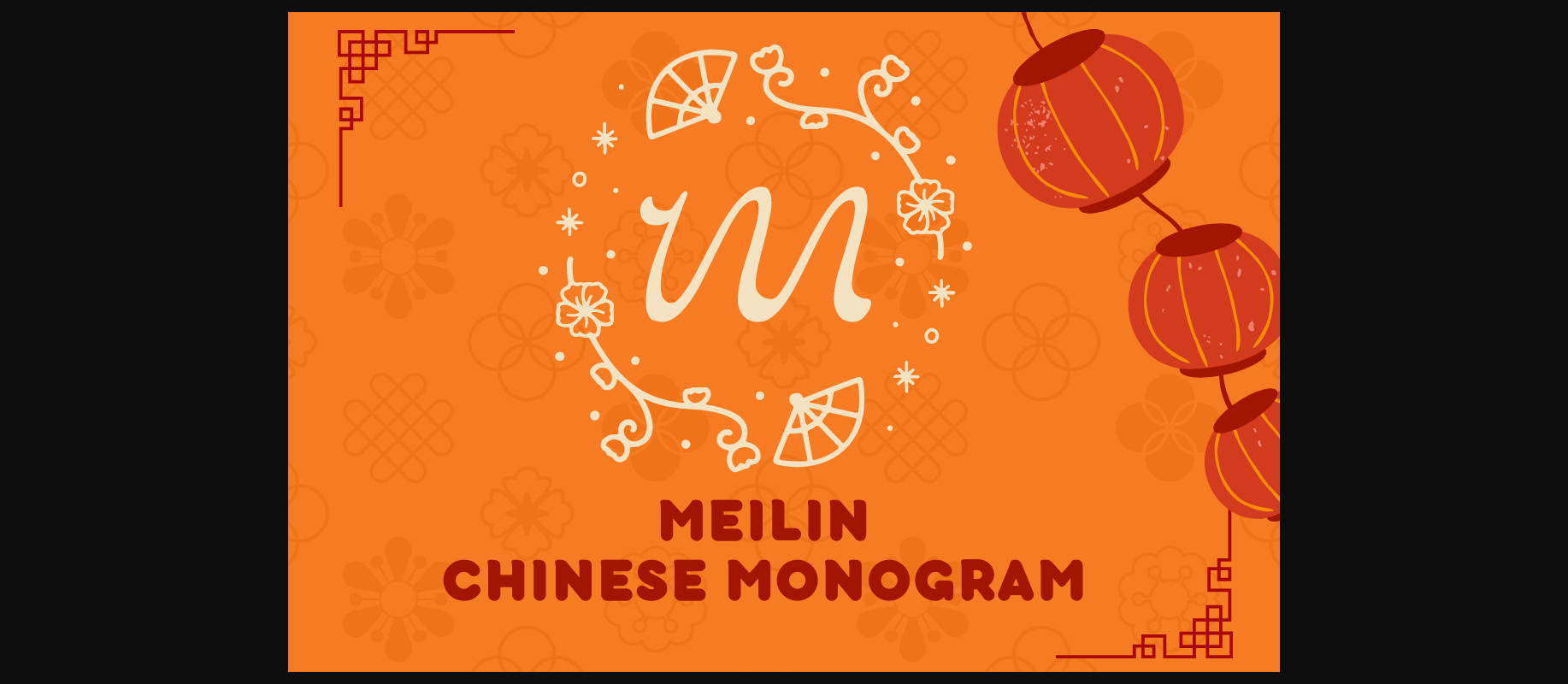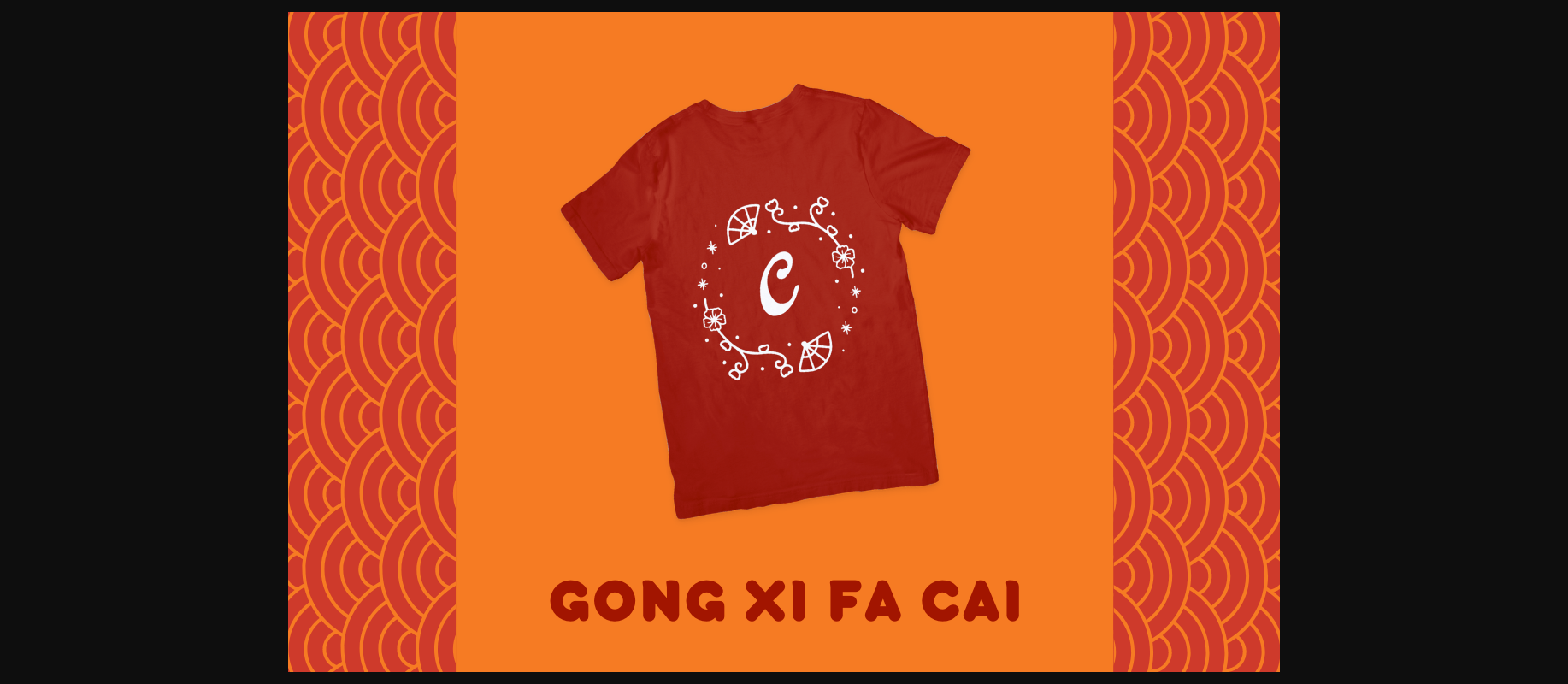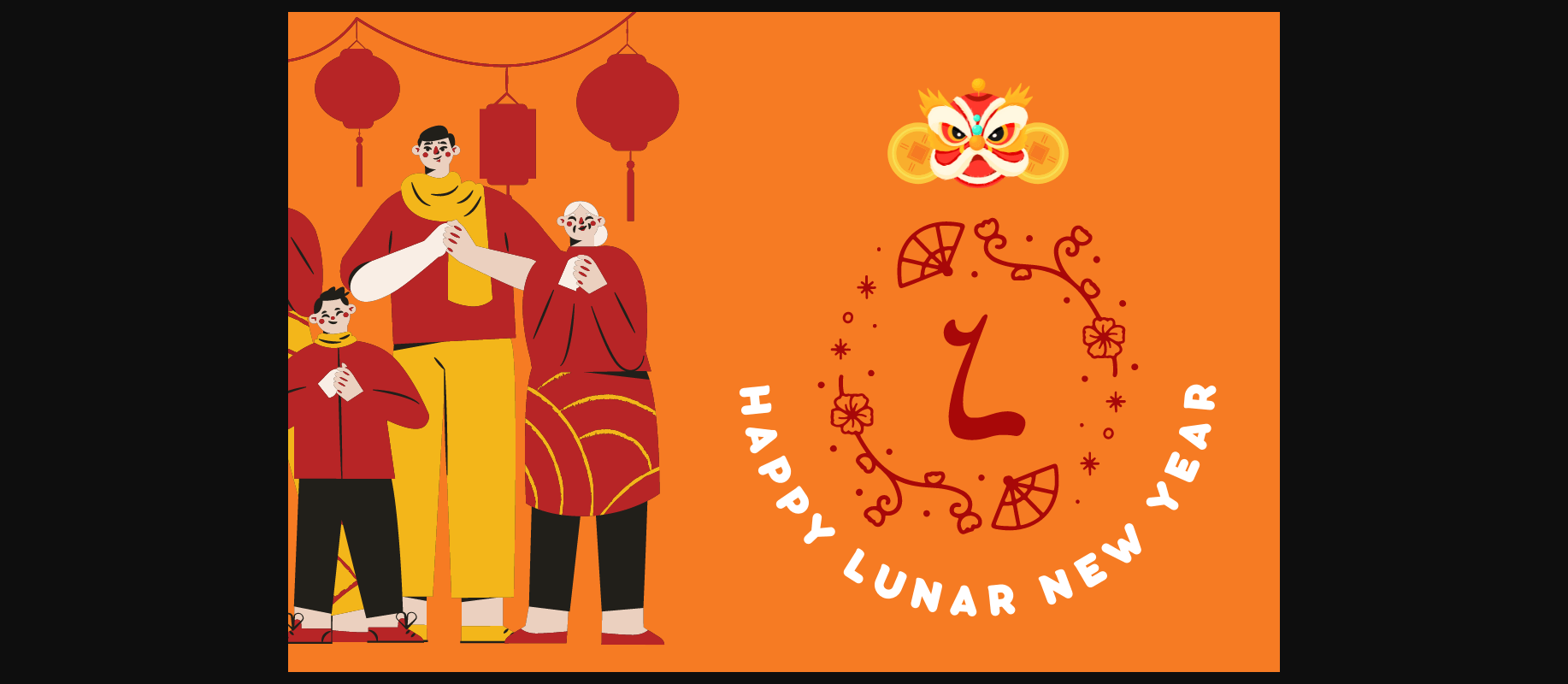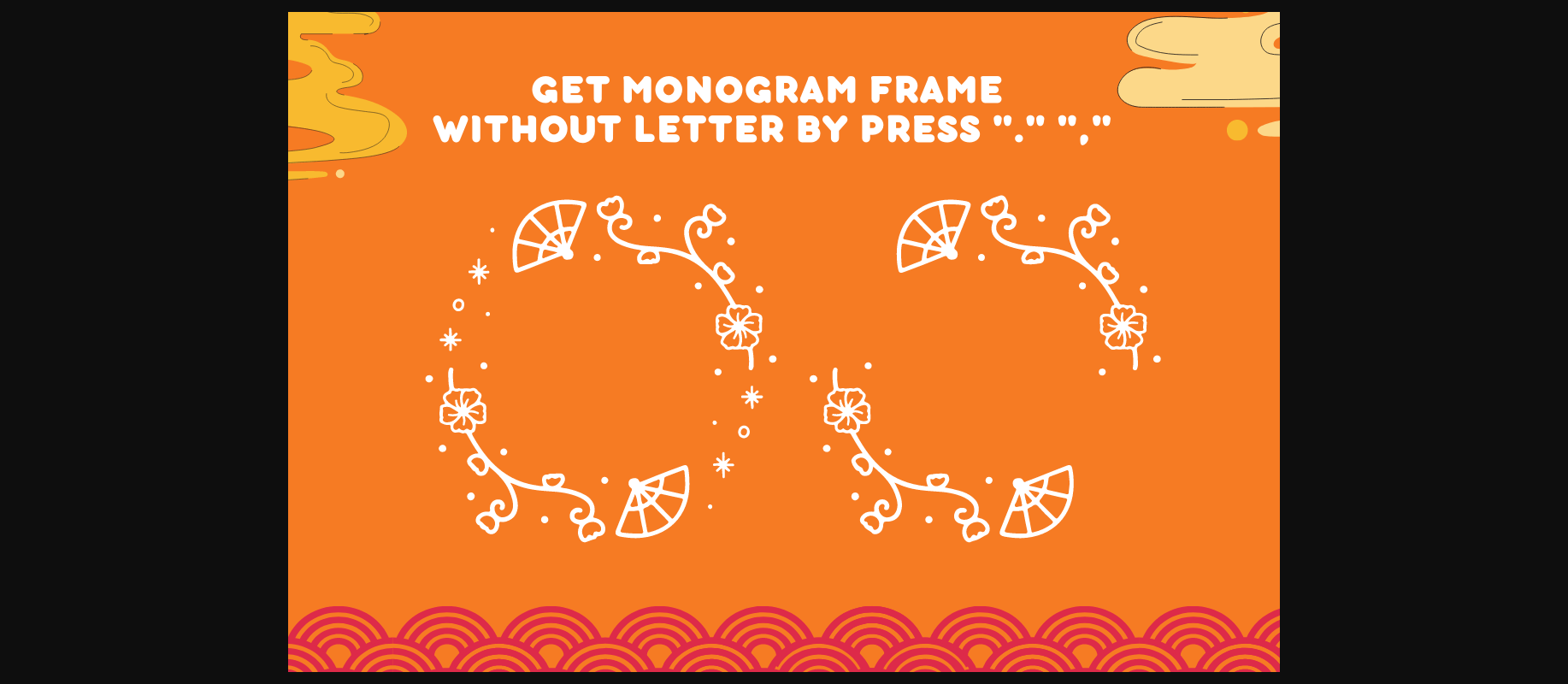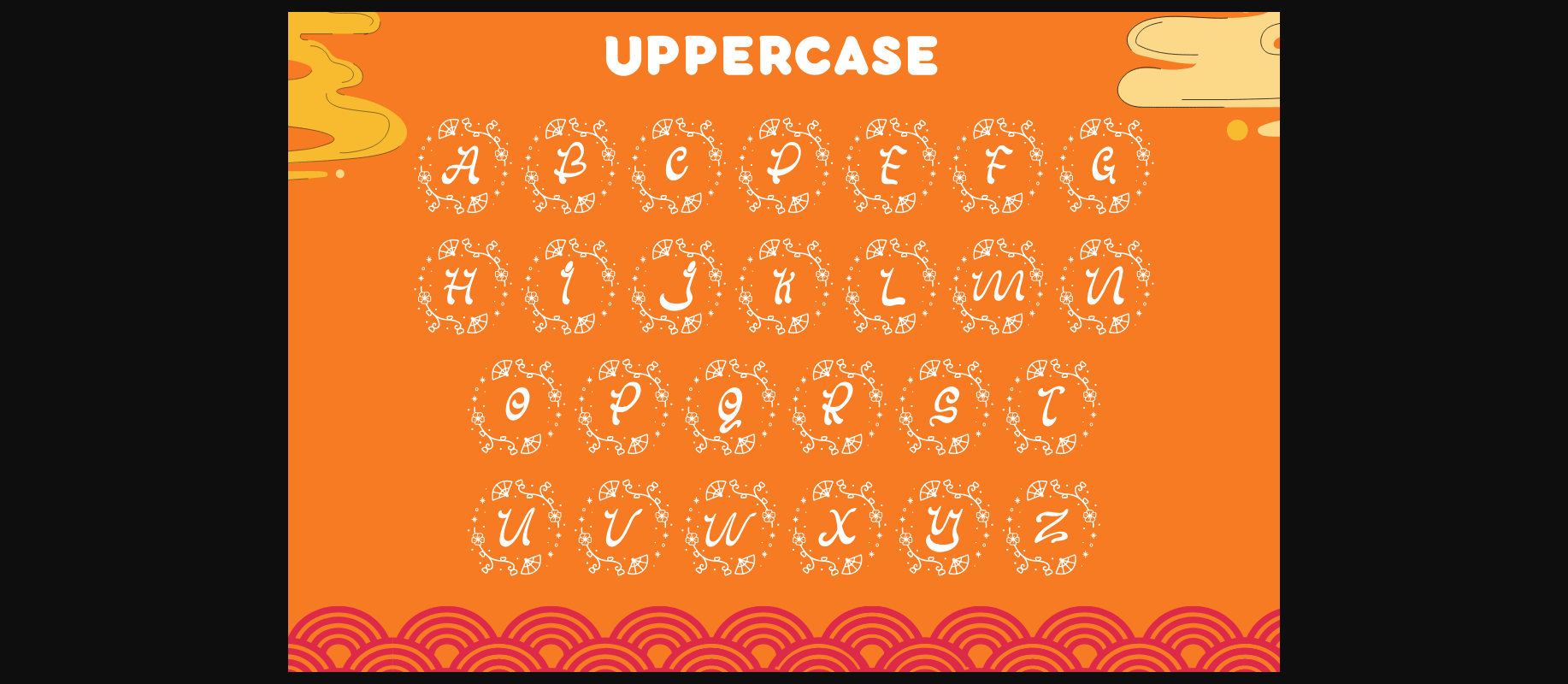
About Meilin Chinese Monogram Font
Meilin Chinese Monogram is a decorative font with a circle botanical wreath.
This font can be used to make Chinese new year themed gifts, including textiles, and gifts for kids, and is the perfect gift for a new homeowner, a Chinese family, or anyone with a love of monograms.